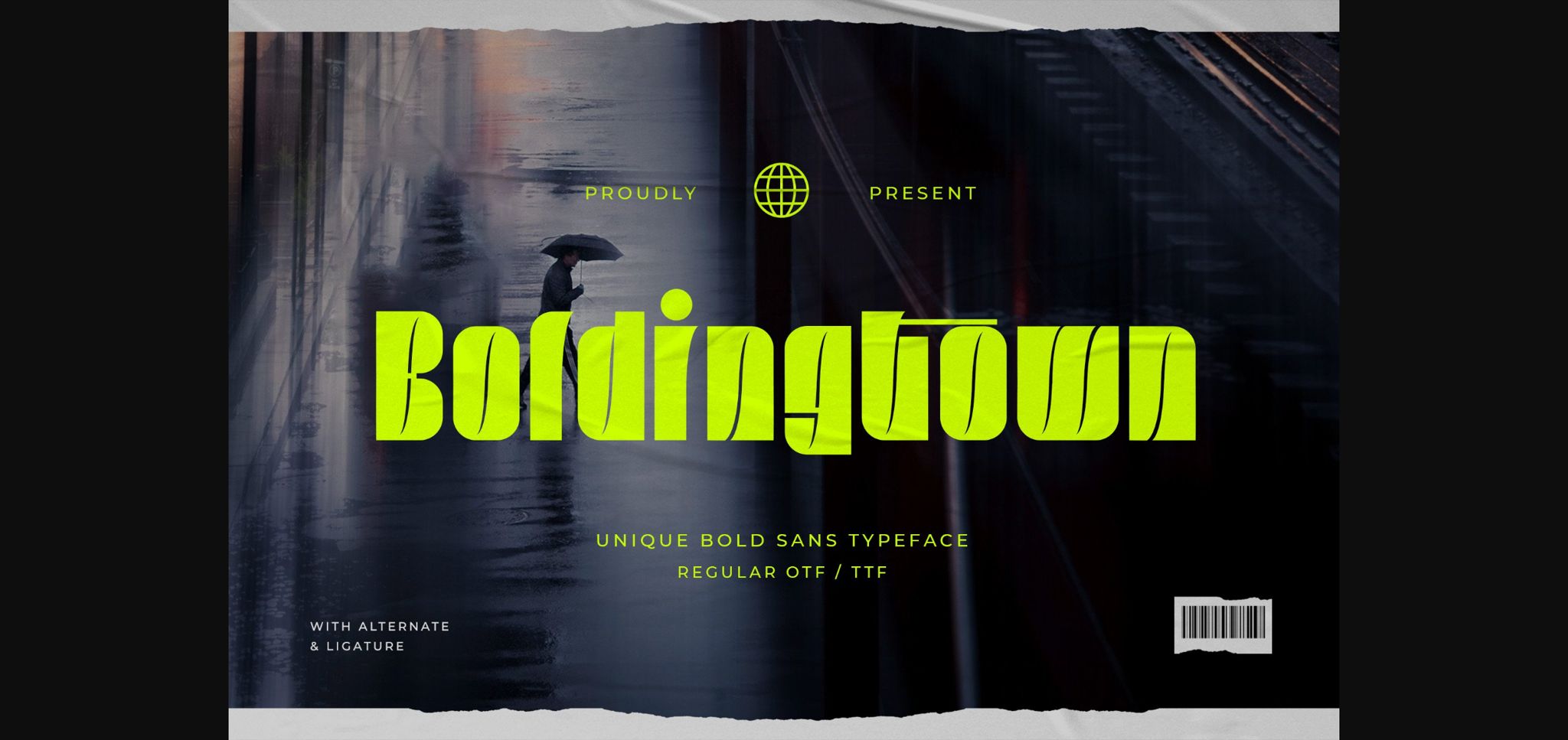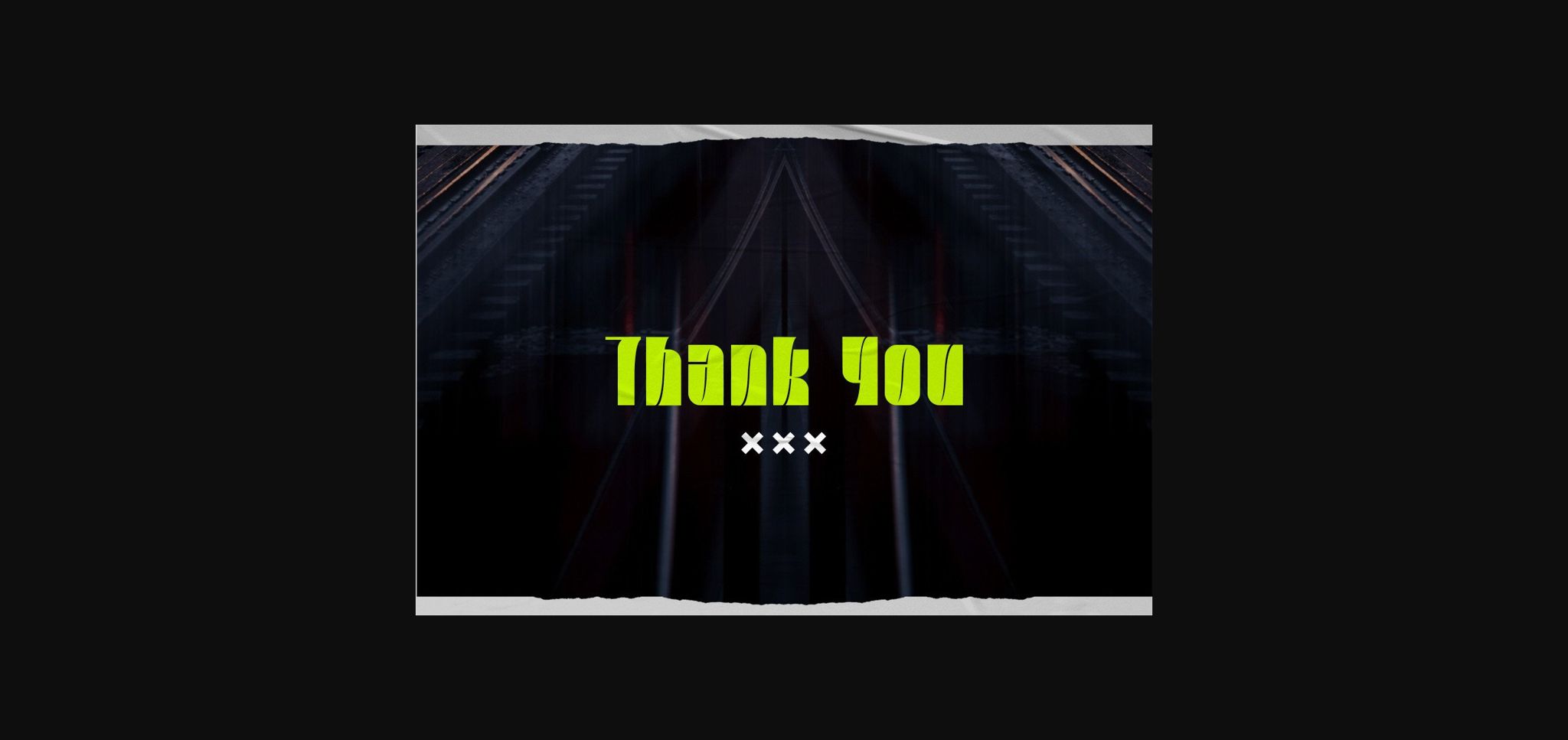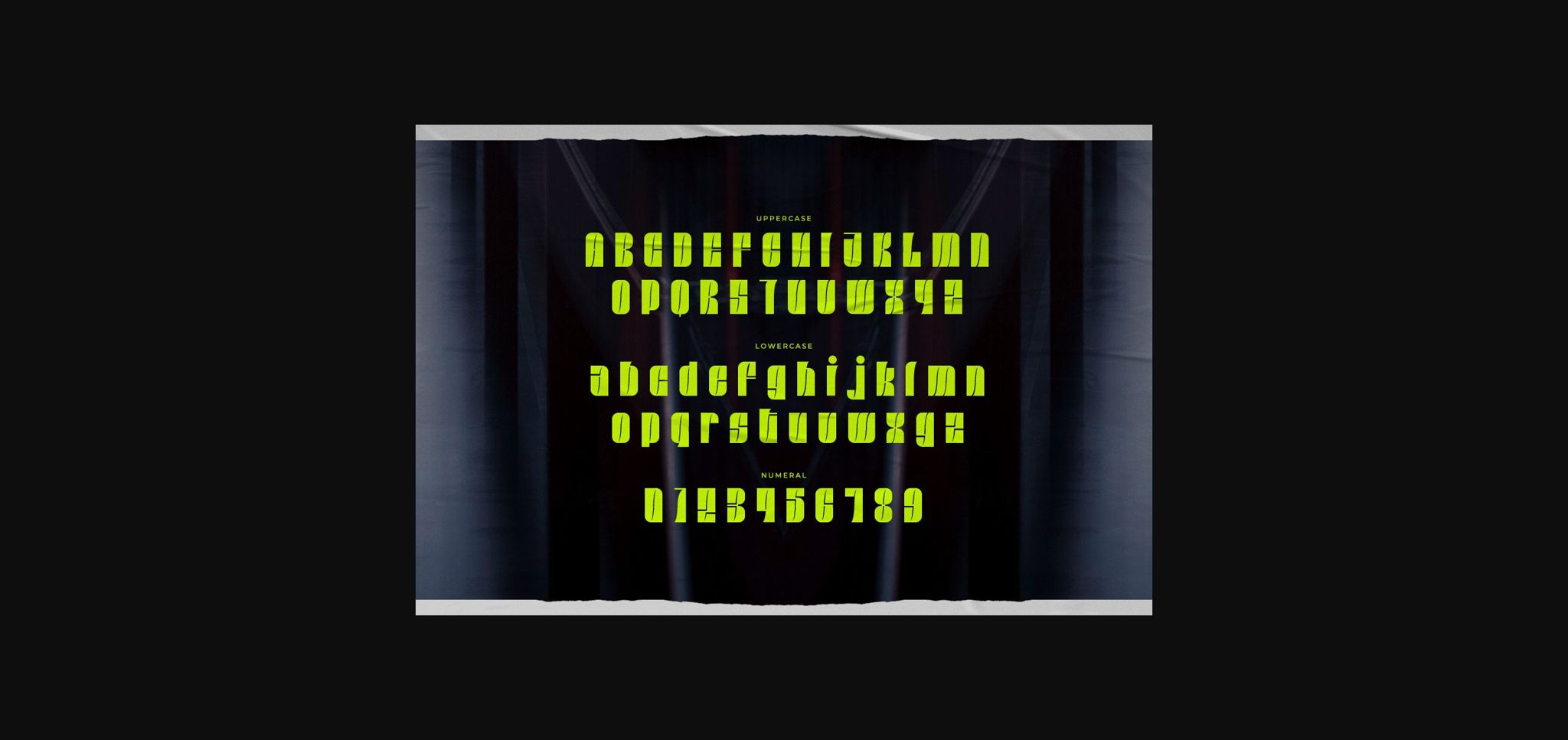
About Boldingtown Font
Boldingtown is a unique bold sans font.
This sans font will be the ideal choice for any cool project or great design you wish to develop.